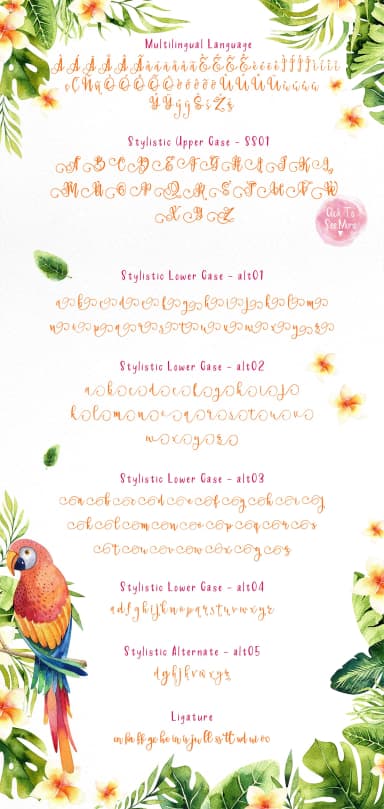
Paradiso Duo by fontsgood is a complementary script pairing that captures warm, botanical aesthetics through two thoughtfully designed typefaces. The collection includes Sunrise and Paradiso, each crafted in both regular and vintage weights, providing four distinct style options for different creative applications. This dual-font system allows designers to work with either typeface independently or combine them for layered, multidimensional typography.
The regular weights deliver crisp, contemporary letterforms well-suited for Etsy product labels, boutique skincare packaging, and sophisticated branding applications. Meanwhile, the vintage weights introduce nostalgic charm and hand-crafted warmth, perfect for antique-inspired designs and retro-themed projects. Whether you're creating wedding invitation suites with complementary headlines and body copy, designing hand-lettered menu cards for restaurants, or developing small batch product branding, Paradiso Duo's flowing organic forms and sophisticated character styling adapt seamlessly across mediums. The script's elaborate curves work particularly well for DIY craft signage, decorative social media graphics, and personalized greeting cards.
Each weight variation maintains the signature botanical elegance that makes these fonts instantly recognizable, while the two distinct styles ensure you're never limited by a single aesthetic. The thoughtful spacing and smooth letterforms ensure legibility even at smaller sizes, a practical consideration for detailed packaging work or intricate design applications. Explore Paradiso Duo on Creative Fabrica to add this versatile script pairing to your design library.
Paradiso Duo Font is a script font that shines as a display or heading face. Pair it with a clean sans-serif or serif font for body text β the contrast creates a clear hierarchy while the two styles stay balanced and easy to read.